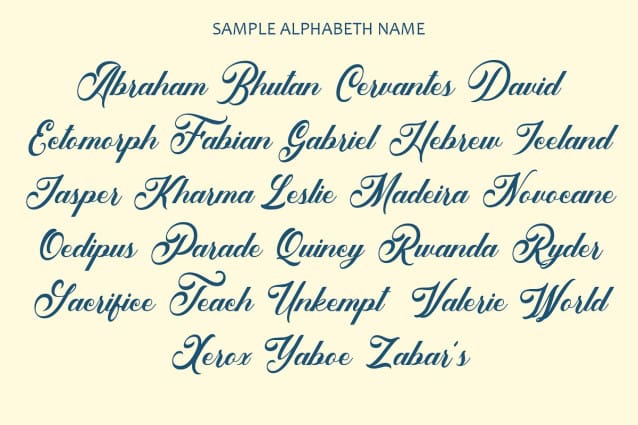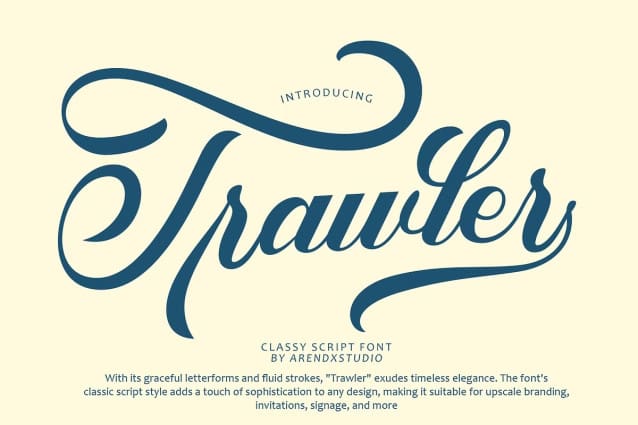
Trawler Font
Trawler Font – Classy Script Font exudes elegance and sophistication, making it a standout choice for various design projects. Here’s an explanation of its key features:
-Timeless Elegance: With its graceful letterforms and fluid strokes, “Trawler Font” exudes timeless elegance. The font’s classic script style adds a touch of sophistication to any design, making it suitable for upscale branding, invitations, signage, and more.
-Refined Details: “Trawler Font” is meticulously crafted with attention to detail, featuring delicately looped ascenders and descenders, graceful curves, and intricate connections between characters. These refined details contribute to the font’s overall sense of luxury and refinement.
-Versatile Application: Despite its formal appearance, “Trawler Font” is versatile and adaptable to various design contexts. Whether used for wedding invitations, product packaging, editorial layouts, or branding collateral, the font lends a sense of class and elegance to any project.
-Readable and Legible: While “Trawler” exudes elegance, it remains highly readable and legible, ensuring that messages are communicated clearly and effectively. The font strikes a balance between style and functionality, making it suitable for both display and body text.
-Distinctive Personality: “Trawler” has a distinctive personality that sets it apart from other script fonts. Its refined aesthetic and understated charm make it an excellent choice for designers seeking to convey sophistication and refinement in their designs.
Overall, “Trawler” is a classy script font that combines timeless elegance with refined details and versatility. Whether used for formal invitations or elegant branding, this font adds a touch of sophistication and charm to any design project.